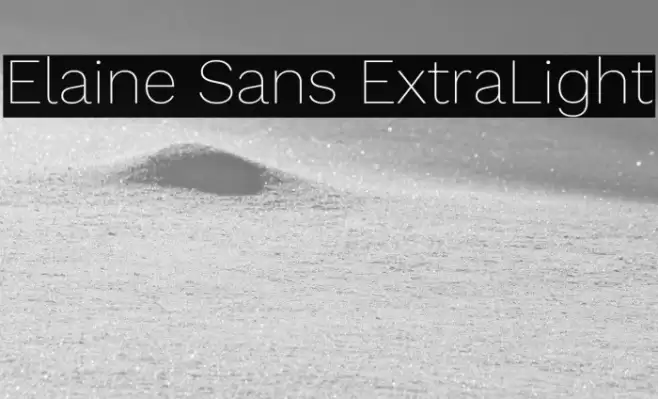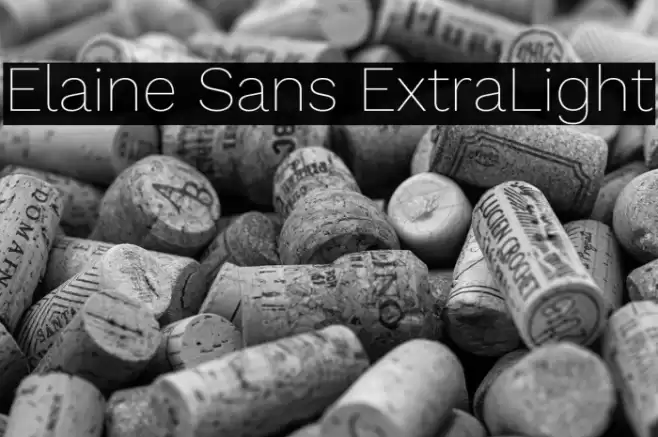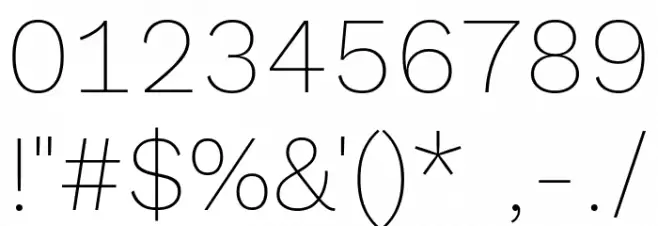
Elaine Sans ExtraLight Font
Elaine Sans ExtraLight Description
This font features a clean and minimalist design with a focus on simplicity and readability. The characters are evenly spaced, with a consistent stroke width that gives it an airy and open appearance. The uppercase letters are tall and elegant, while the lowercase letters maintain a smooth and rounded form. The numerals are clear and straightforward, making them easy to read. Special characters are designed with the same minimalist approach, ensuring uniformity across the font. This style is ideal for modern and contemporary design projects, where clarity and simplicity are key.
A clean, minimalist sans-serif font with an airy and open design from Sans Serif fonts.
- Proposed Projects: Ideal for modern branding, minimalist websites, clean editorial layouts, and contemporary advertising.